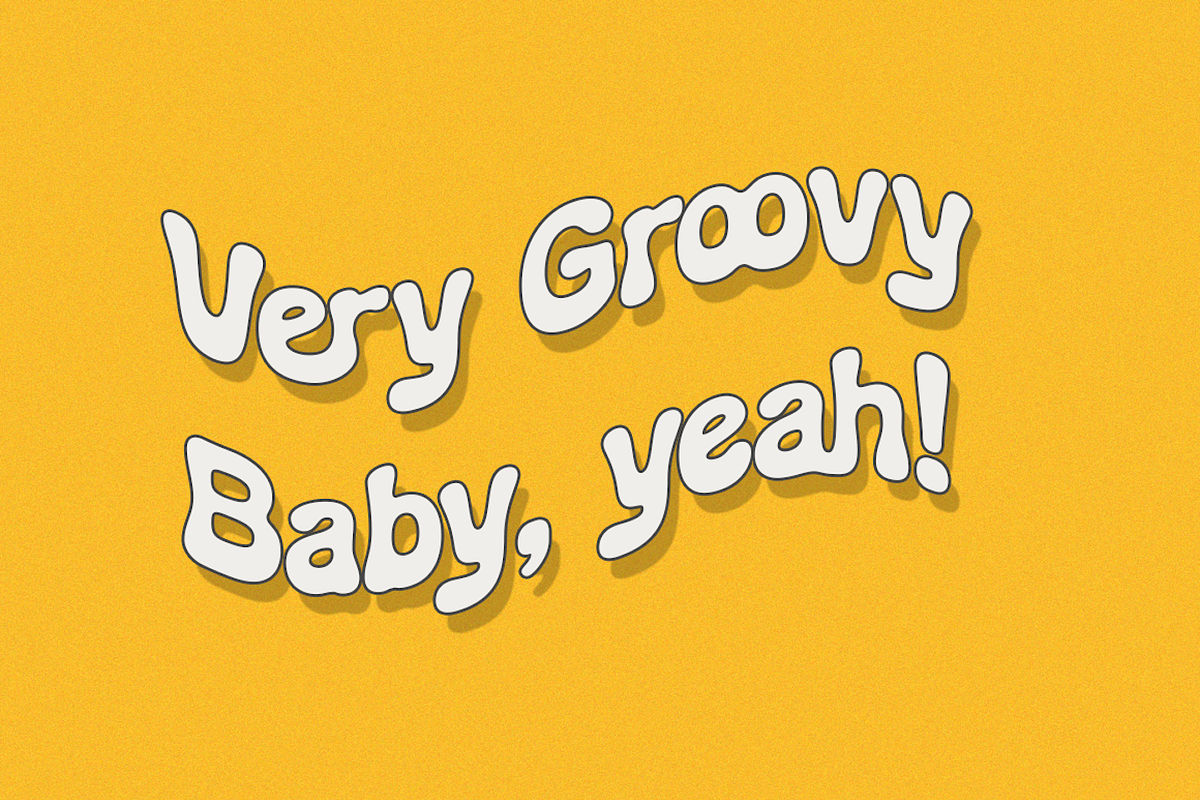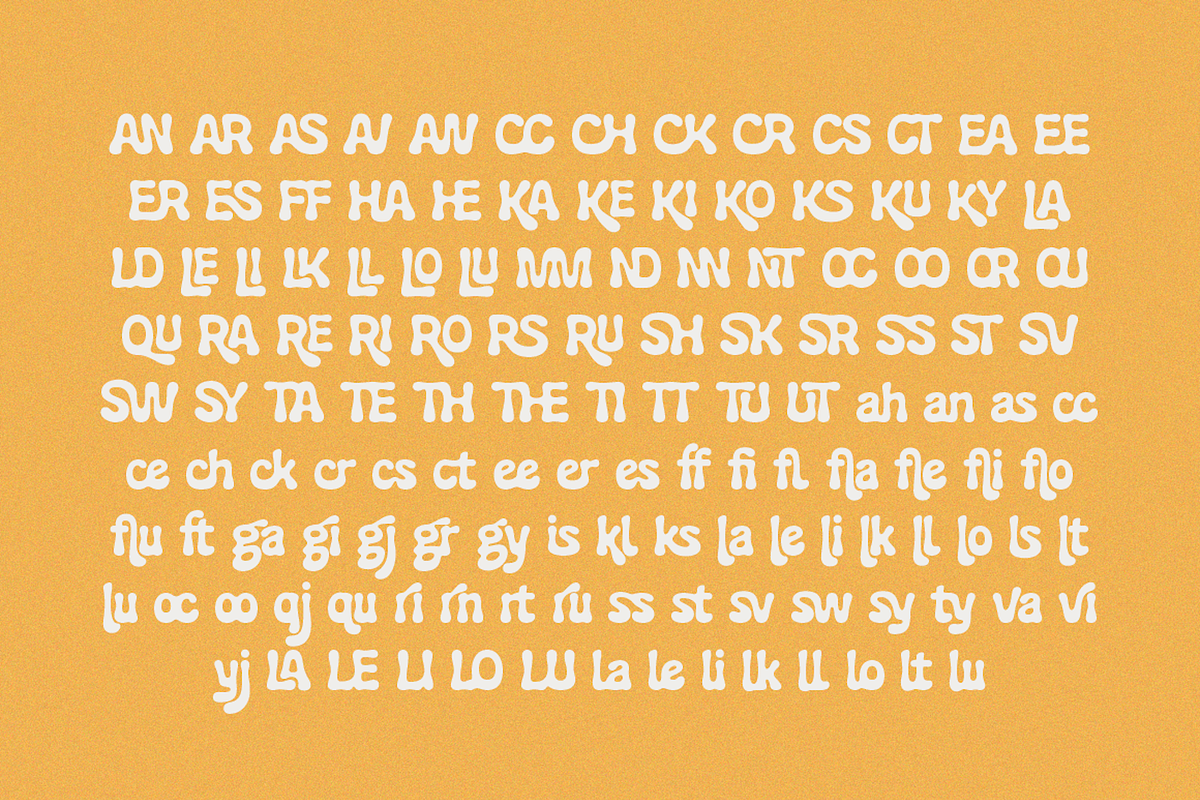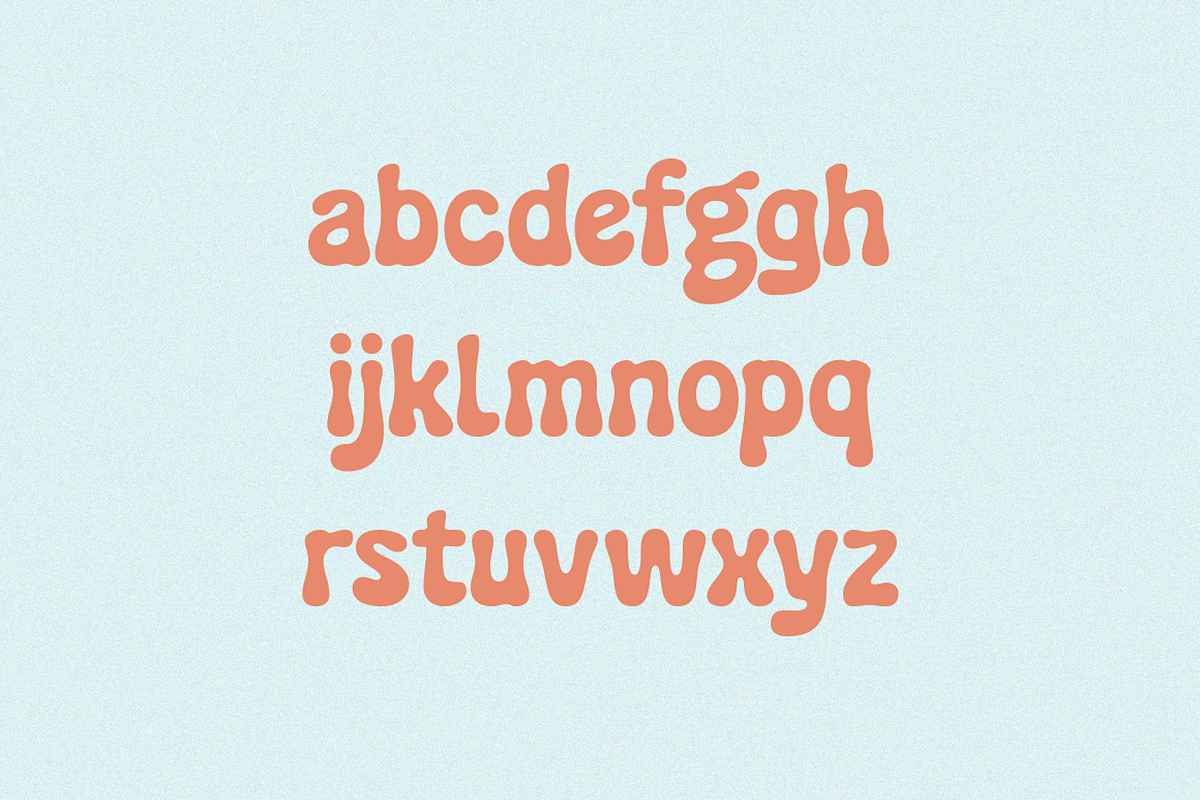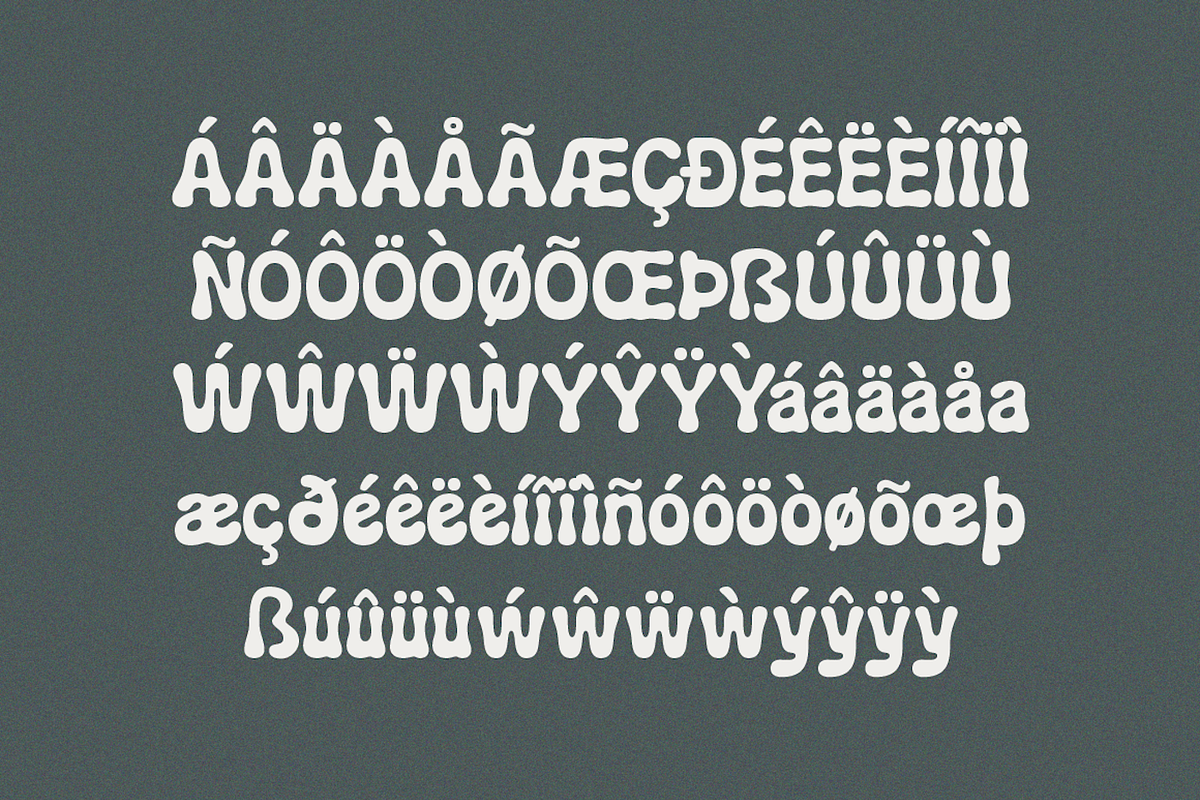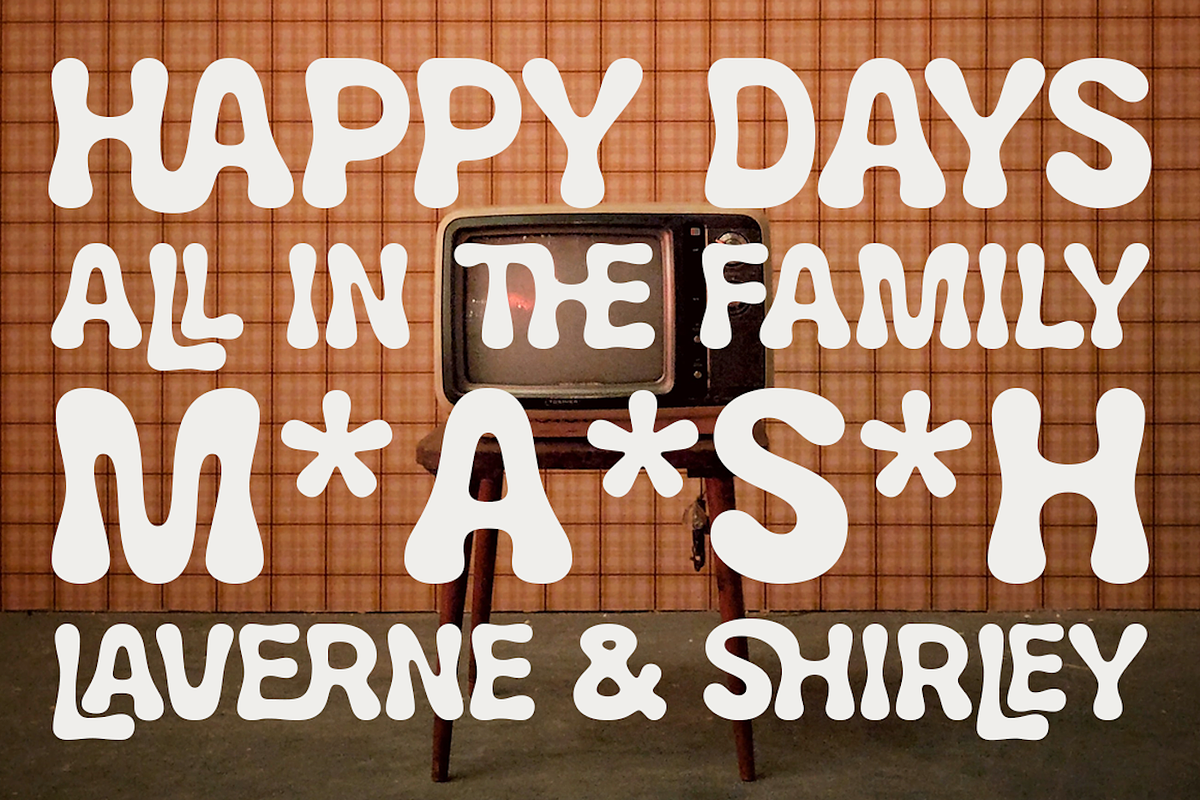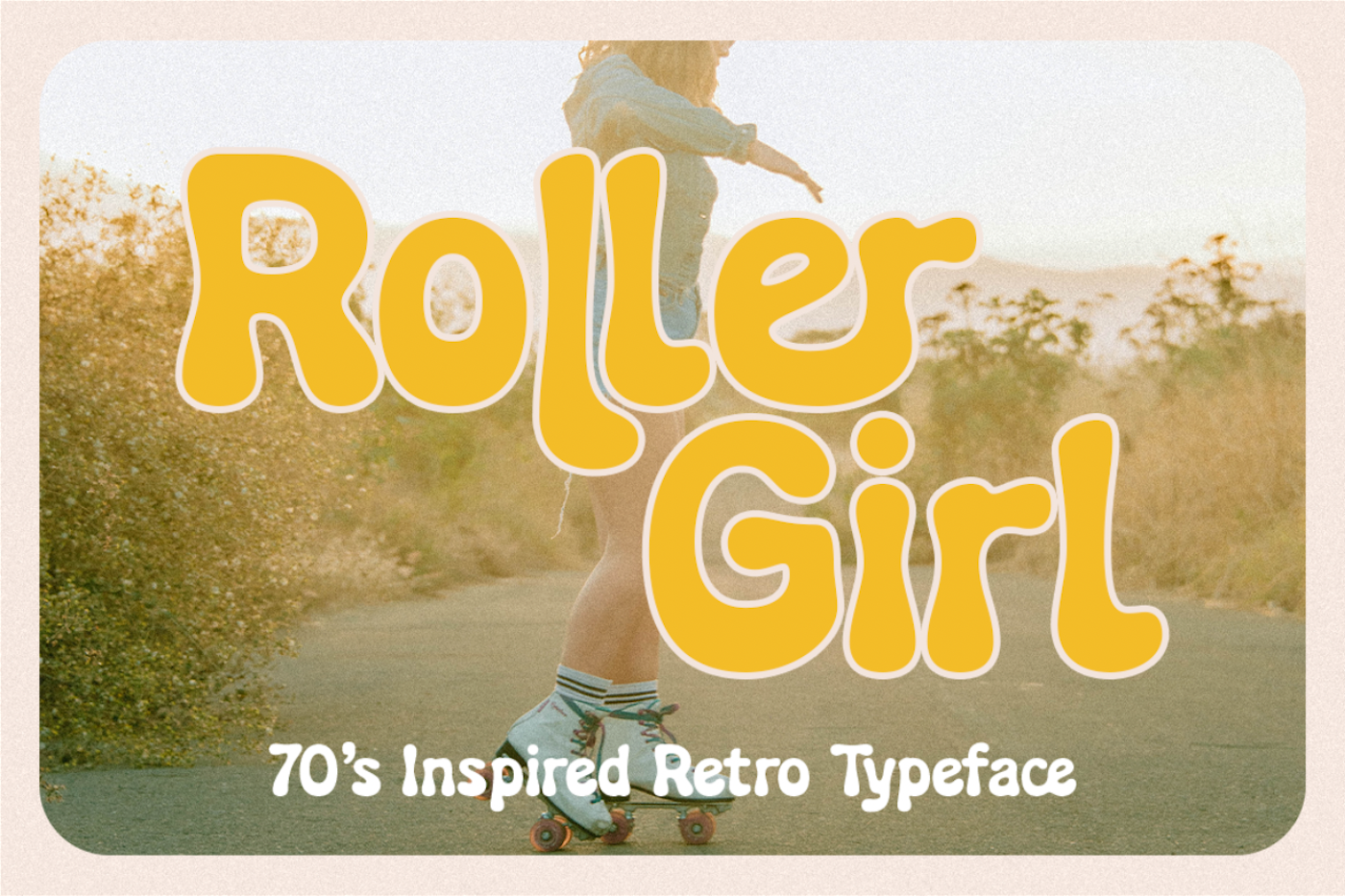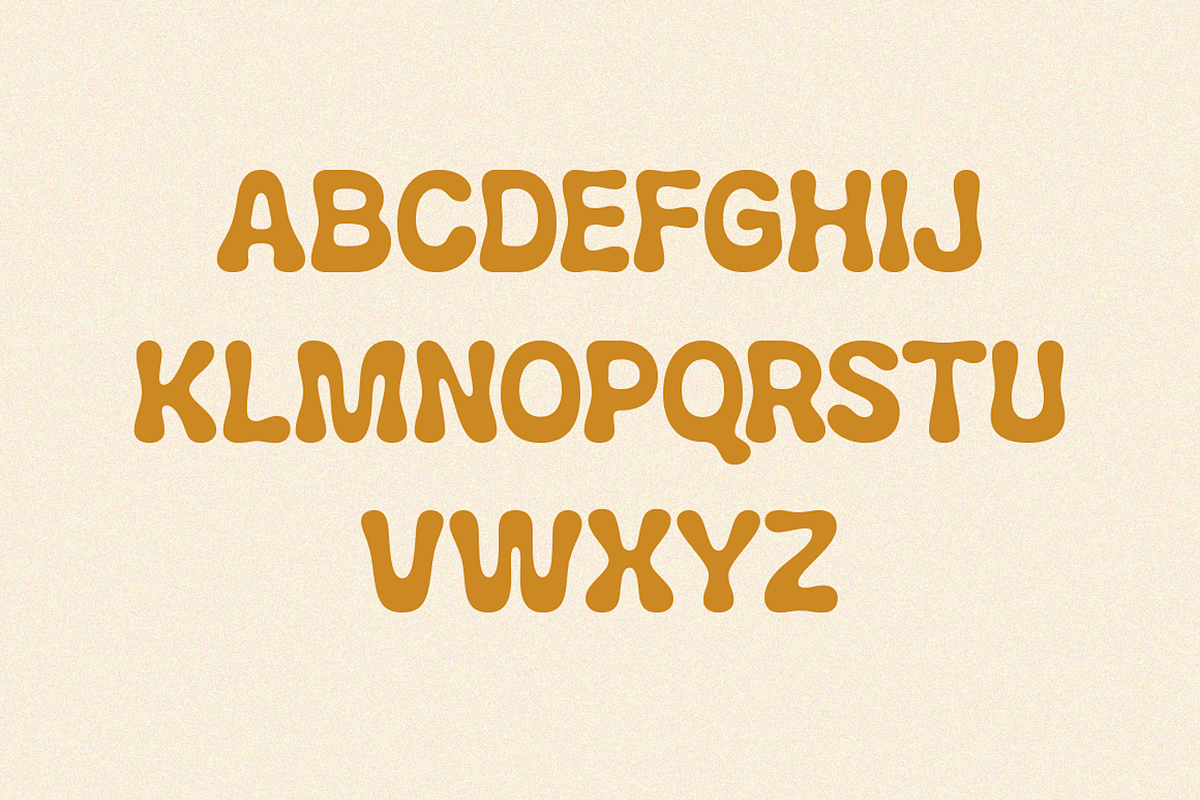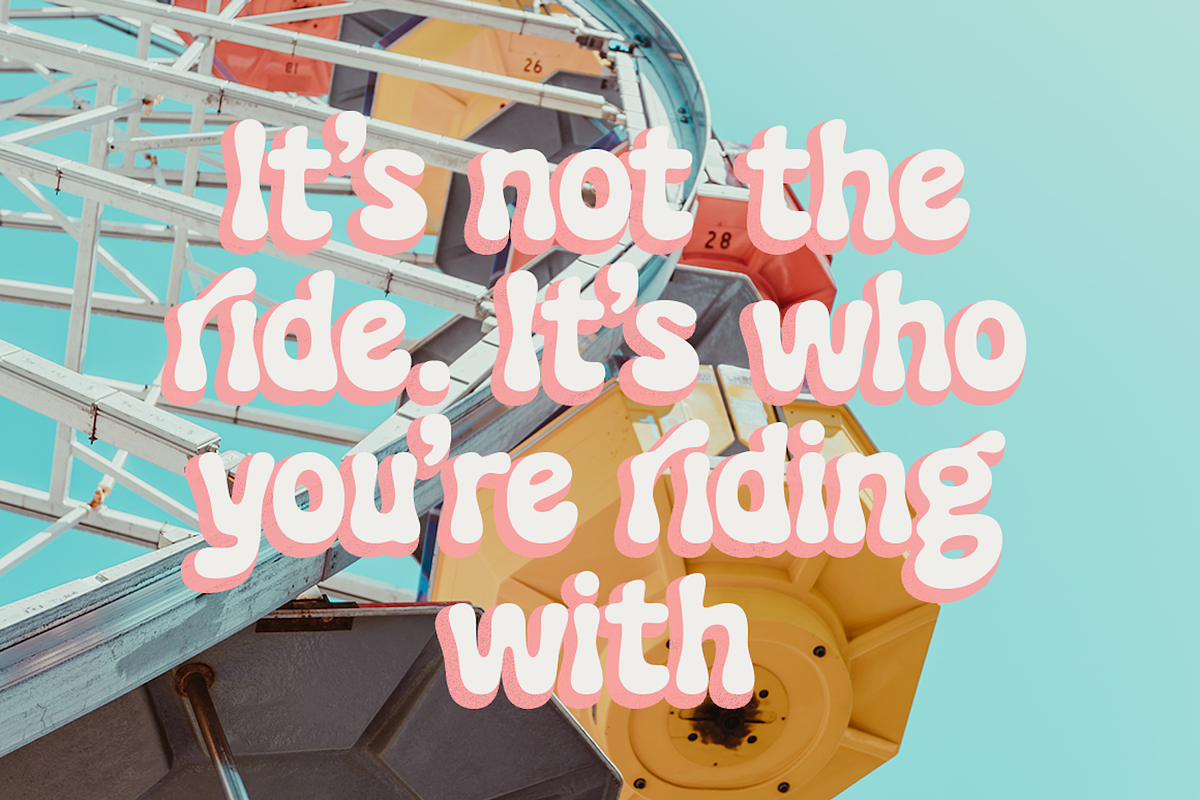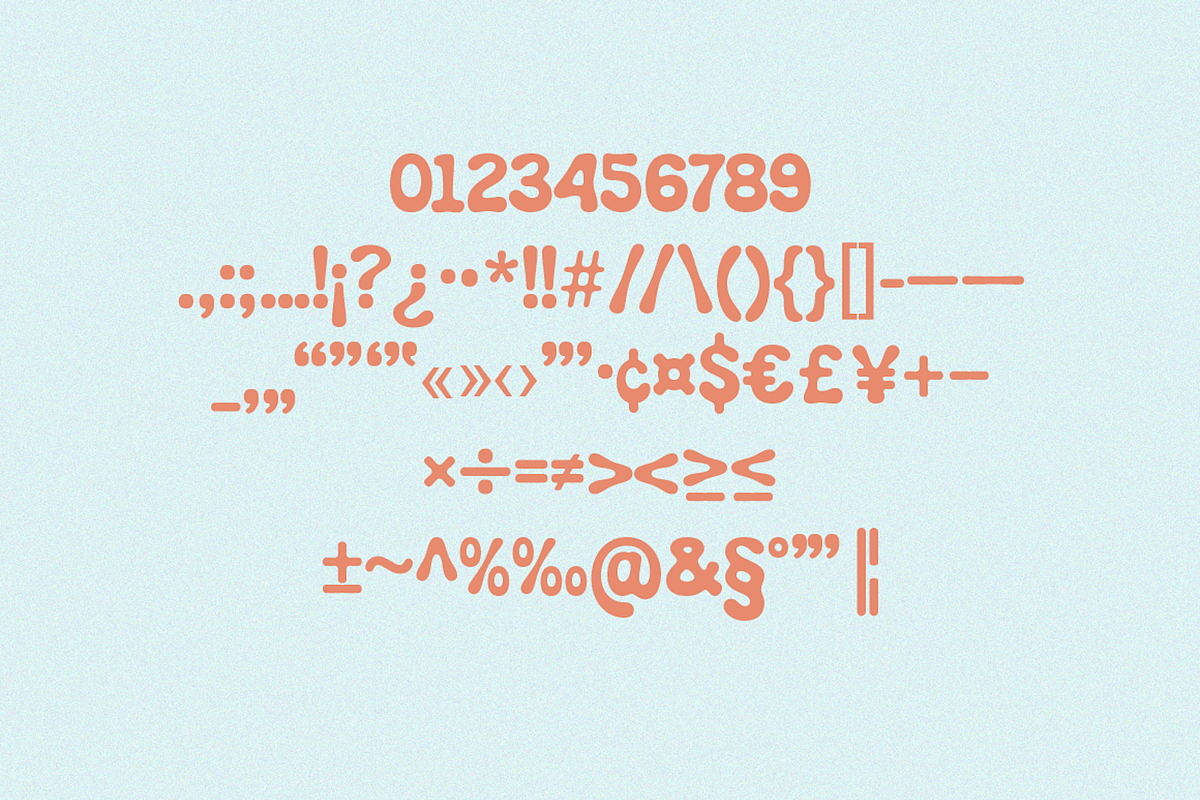
Roller Girl - Groovy Retro 70s Font
Roller Girl is a bubbly ligature filled 70's inspired retro font. Roller Girl has easy going curves and a laid back aesthetic. It has a ton of ligatures in both upper and lower case that can help you create unique designs that stand out.